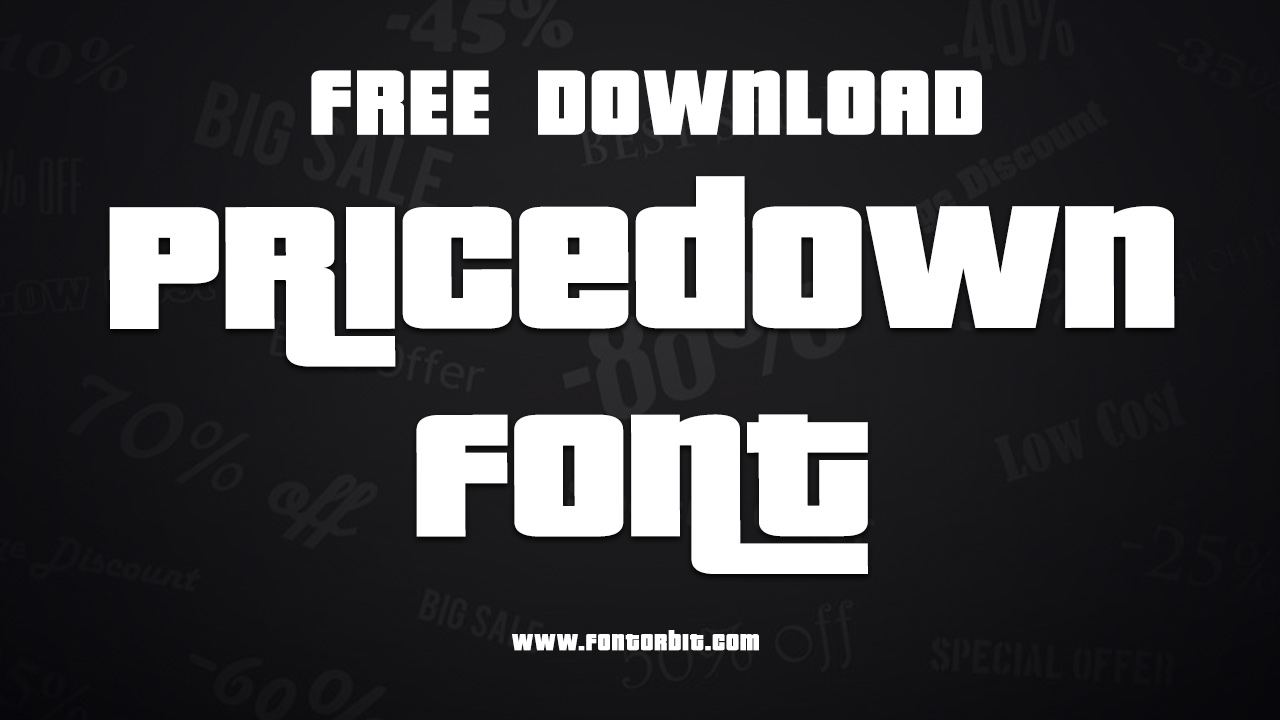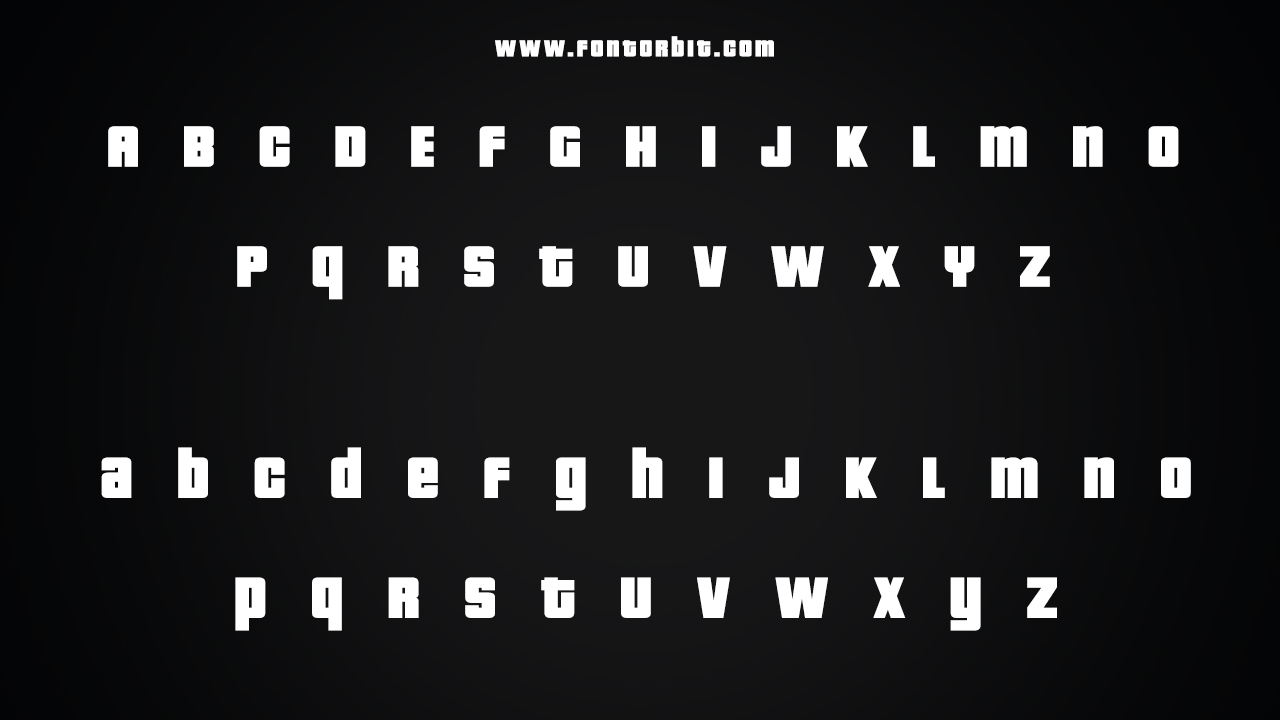
The Pricedown font is a bold and iconic typeface widely recognized for its distinctive style. It often represents urban culture and entertainment industries.
Designed by Typodermic Fonts Inc. and released in 2000, this font is inspired by the lettering used in the American TV game show The Price Is Right. Its unique and engaging appearance has made it a favourite for branding, posters, and advertisements.
The Pricedown font family is perfect for those looking for bold, retro-style fonts. Below is a list of variations within the font family:
These styles offer flexibility, making the font suitable for various creative projects.
Notable Uses Of Pricedown Font
The Pricedown font has been used in numerous popular media and branding contexts due to its distinctive appearance. Some notable uses include:
- The logo for The Price Is Right TV show
- Various video games, including the Grand Theft Auto series by Rockstar Games
- Posters, billboards, and advertisements aimed at youthful and energetic audiences
- Urban clothing and streetwear brands
- Nightclub and event promotions
Its bold, blocky design makes it perfect for entertainment, gaming, and pop culture-related projects.
Pricedown works exceptionally well in contexts where you want to grab attention and make a bold statement. It’s ideal for:
- Posters and advertising campaigns
- Event promotions and flyers
- T-shirt designs
- Logos and branding for urban or entertainment industries
- Video game interfaces and marketing
Given its retro and urban appeal, it’s best suited for modern, edgy, or nostalgic design themes.
The Pricedown font is a must-have for any designer working on projects that require bold, attention-grabbing typography with a retro or urban feel. Its wide use in pop culture ensures that it’s a recognizable and versatile font for various branding, promotional, and entertainment needs.
2.What Kind Of Designs Work Best With The Pricedown Font?
It works best for posters, advertisements, gaming interfaces, and entertainment logos.
3.What Is The Main Inspiration For The Pricedown Font?
It was inspired by the logo from the game show The Price Is Right.
4.Can I Use Pricedown For Logo Designs?
Yes, Pricedown is often used in logos, especially for entertainment and urban brands.
5.Is There A Bold Version Of Pricedown?
Yes, there are bold and black styles available.
6.Does The Pricedown Font Support Italic Versions?
Yes, it offers italic versions for more stylistic flexibility.
7.Is Pricedown A Good Font For Social Media Posts?
Yes, its bold style makes it great for eye-catching social media graphics.